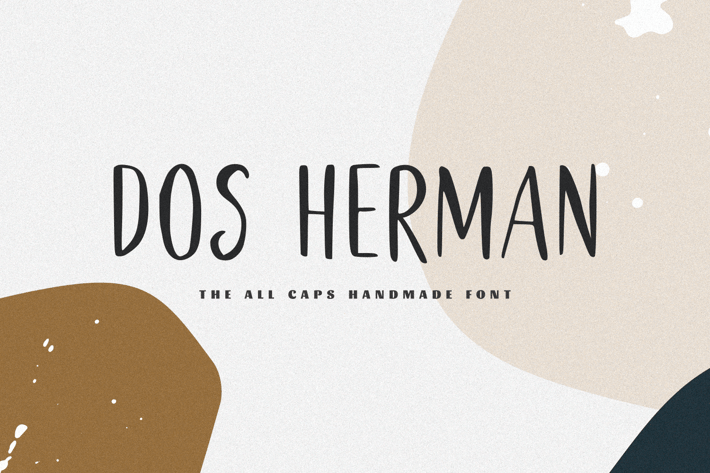
Dos Herman - The All Caps Handmade Font
Dos Herman - The All Caps Handmade Font, every single letter has been carefully crafted to make your text looks beautiful. it's perfect for logos, name cards, magazine layouts, invitations, headers, or even large-scale artwork.
- Dos Herman - The All Caps Handmade Font, numerals and more of symbols.